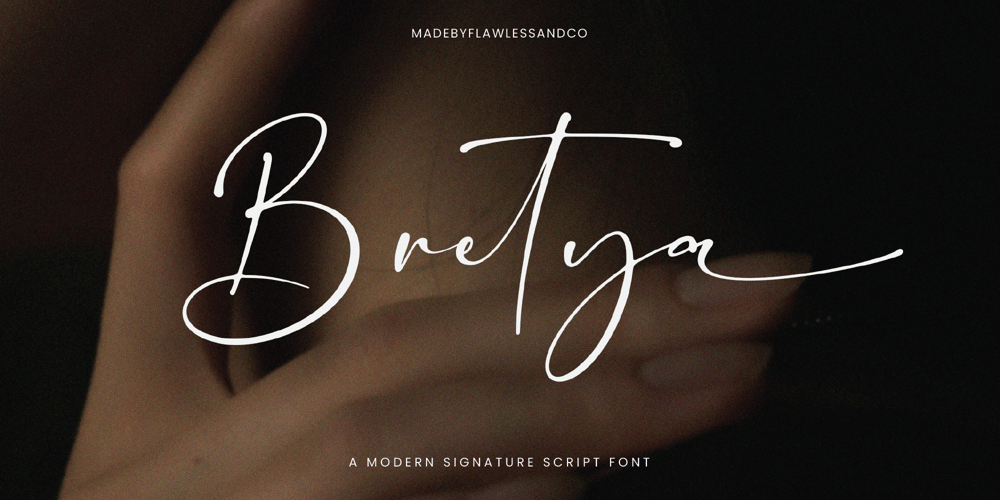
Bretya Font Family was designed by Achmad Yani and published by Flawlessandco. Bretya contains 1 styles and family package options. Bretya – Signature Font, Script Font, Wedding Font, Invitations font, Interior Design Font, Trademark Font, Elegant Font, Modern Font, Canva Font, Cursive Font, Cricut Font, Procreate FontMake your mark with “Bretya,” a modern signature script font that embodies elegance, confidence, and individuality. With its fluid strokes and contemporary flair, Bretya offers a fresh take on the classic signature style, perfect for branding, logos, and personal projects.Keywords: Signature Font, Script Font, Elegant FontThere’s some connected letters and some alternates that suitable for any graphic designs such as branding materials, t-shirt, print, business cards, logo, poster, t-shirt, photography, quotes .etcThis font support for some multilingual. Also contains uppercase A-Z and lowercase a-z, alternate character, numbers 0-9, and some punctuation.If you need help, just write me! Thanks so much for checking out my shop!